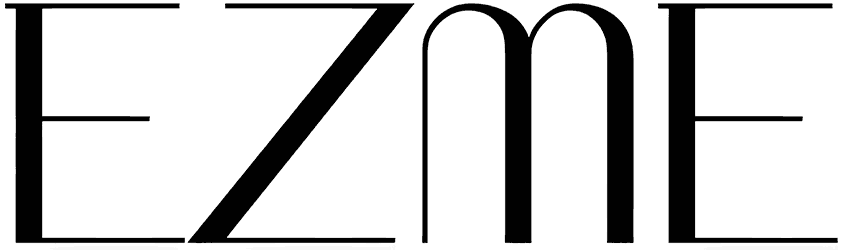
Letbrigor Font
Do you want to have a humble and bold visual for the words of your project? Using this modern fashion font will be a nice choice. This sans-serif font with all its characters can be used for different themes and topics. Adorn your space flyer with the Letbrigor font or add it to your creative projects as you want, and make them professional.
Designed by: Storytype Studio